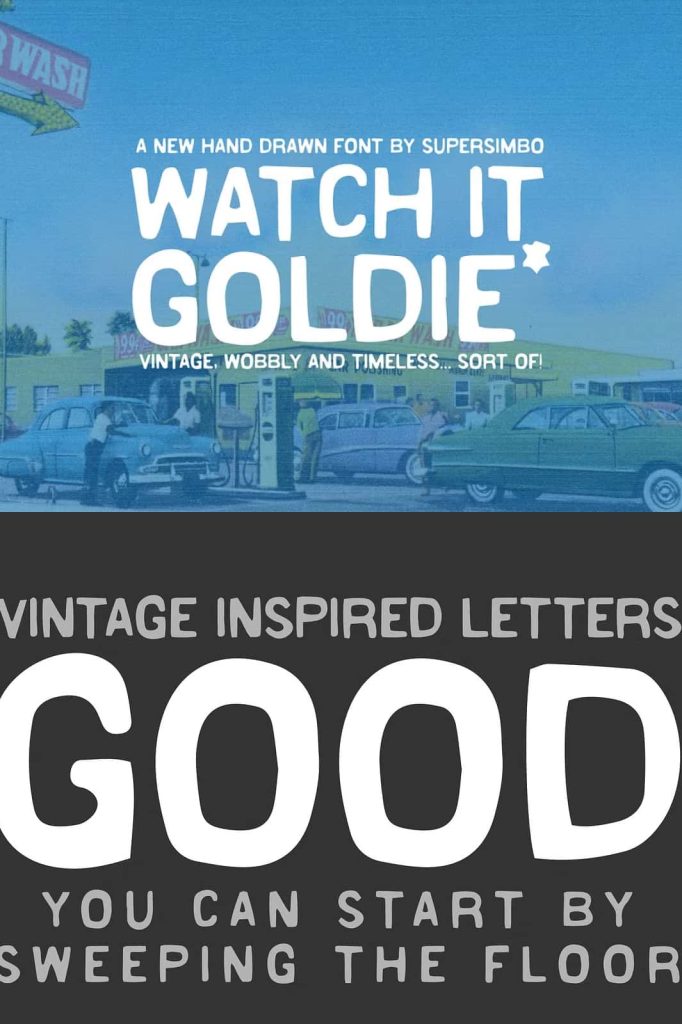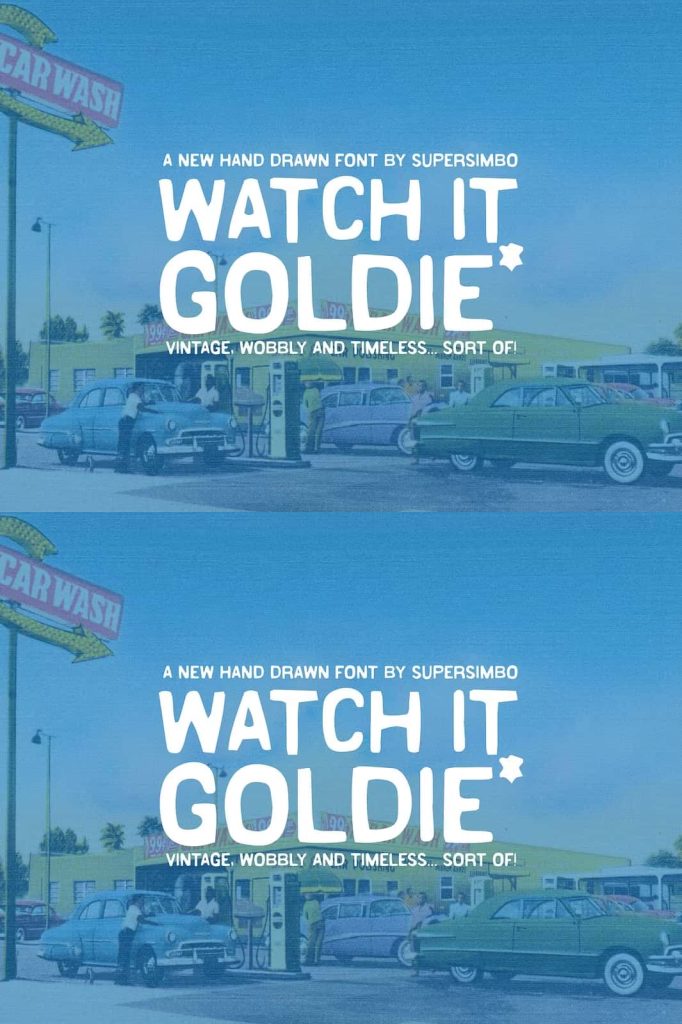
Watch it Goldie | Hand Drawn FontleastedNovember 19, 2024Fonts Watch it Goldie is a hand drawn nod back to a vintage inspired world where everything was done by hand, wobbly and timeless. Download